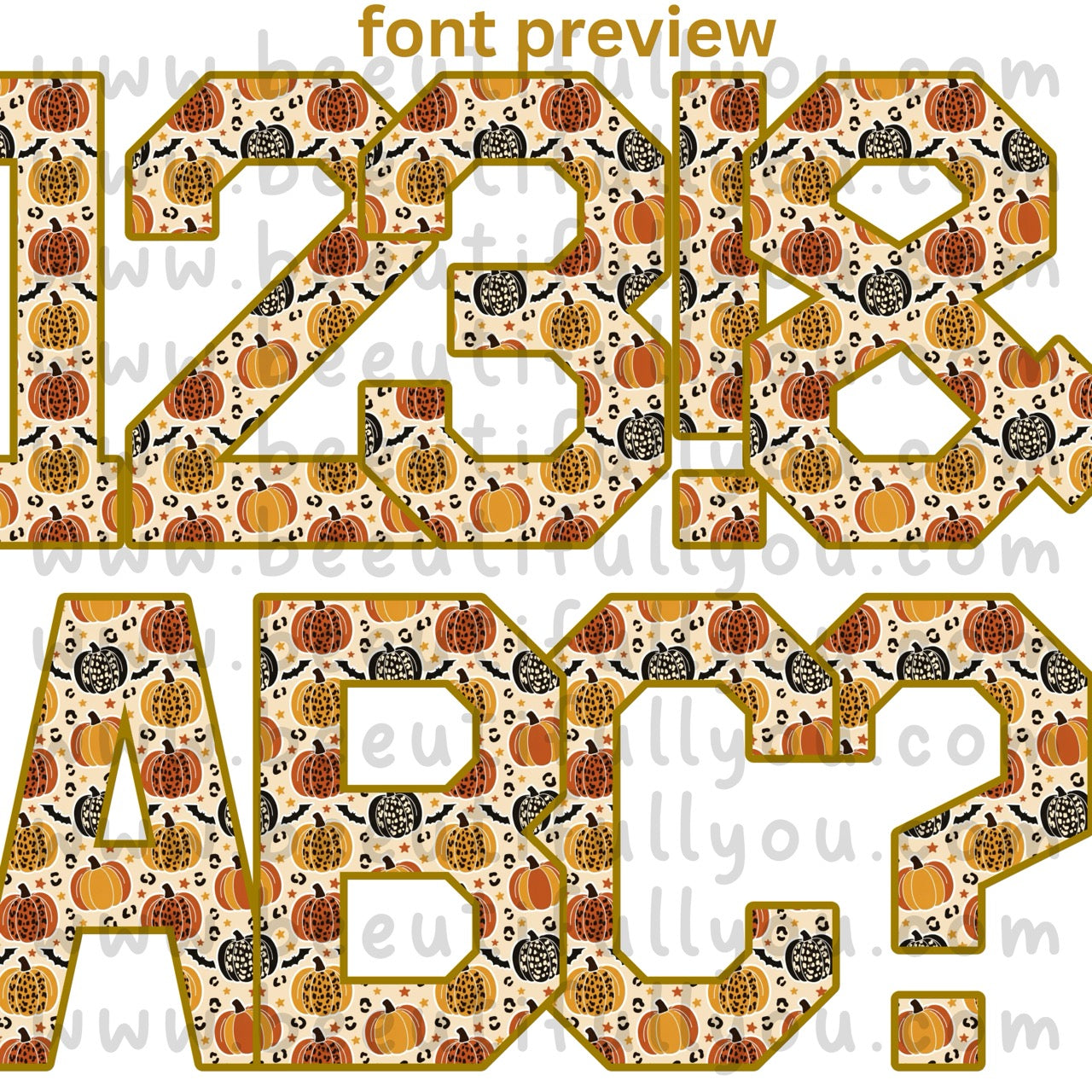
Leopard Harvest Bundle | Alpha Font + Seamless + Clipart
Everything you need for a full fall collection in one download. The Leopard Harvest alpha font, a coordinating seamless pumpkin pattern, and matching leopard pumpkin clipart — all built from the same hand-drawn artwork so every piece works together. Orange, gold, black, and cream leopard pumpkins with bats and scattered stars.
1. ALPHA FONT
- Gold outlined varsity-style letters filled with the harvest pattern